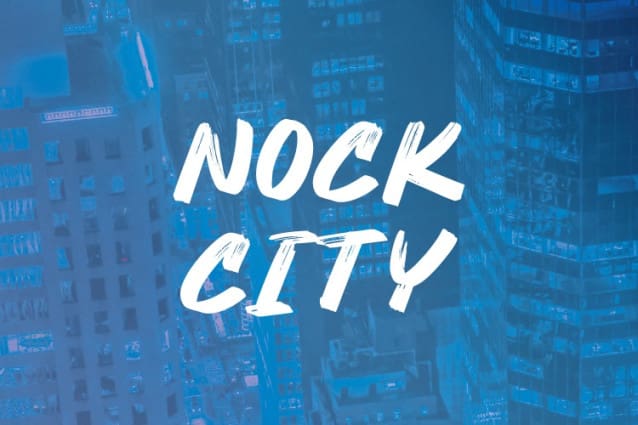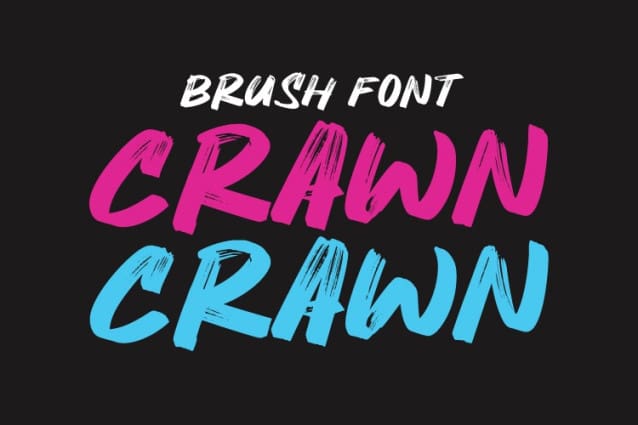
Crawn Font
Crawn Font is a brush font that has a natural impression. Having a playful feel, this font is spontaneously characterful and not boring, so it’s perfect for logo design projects, t-shirts, hats, and so on.